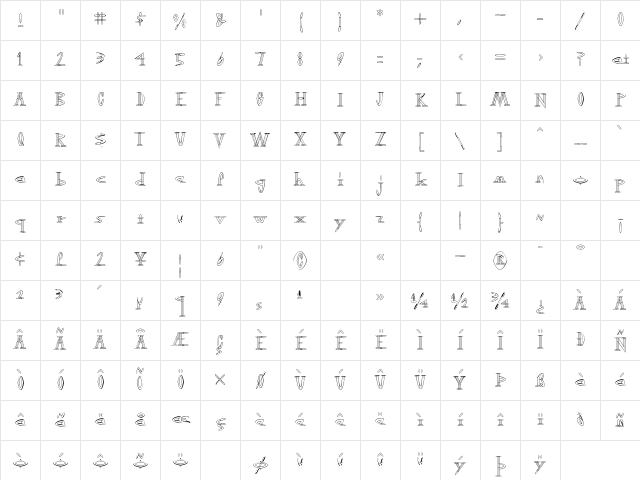
OutwestLight Regular
Copyright: Copyright (C) 1993 Emigre Graphics; Designed by Edward Fella
Design Context for OutwestLight
OutwestLight is a composed and adaptable typeface that performs quietly and consistently across a wide range of design contexts. Its slender proportions lend an understated elegance to any composition.